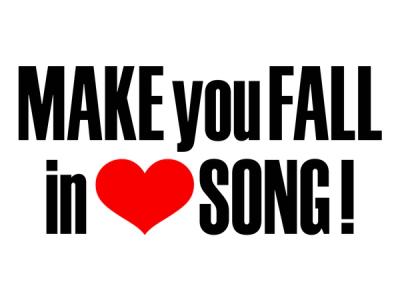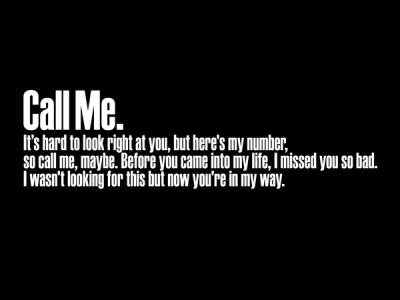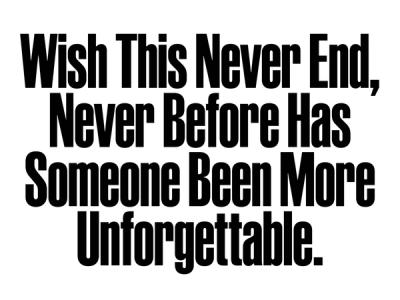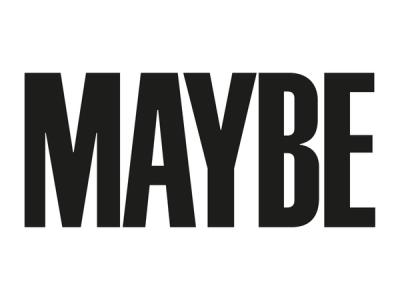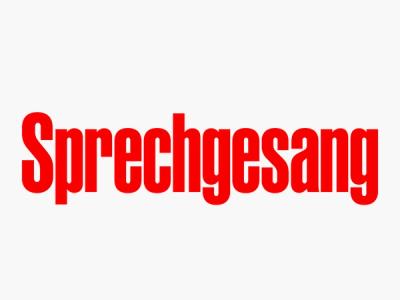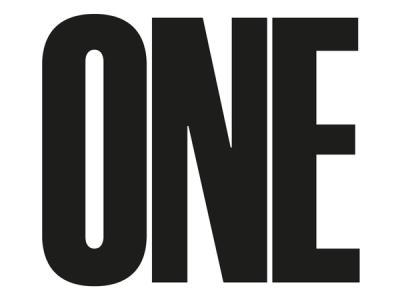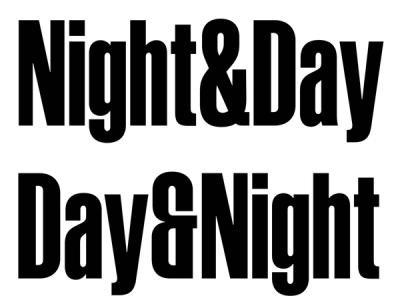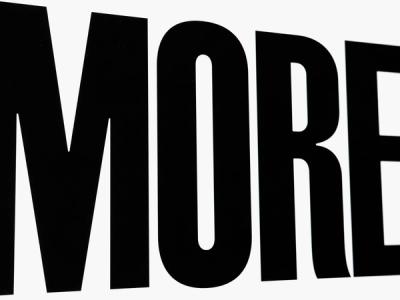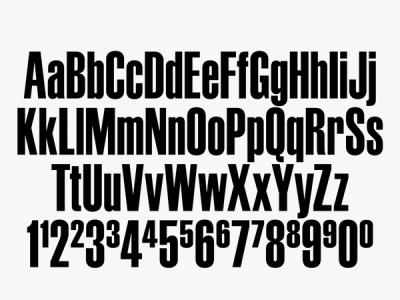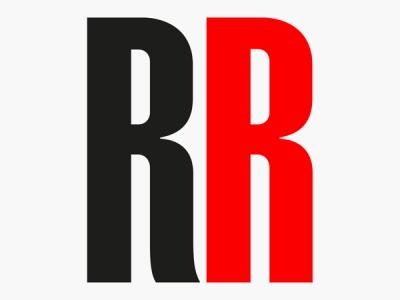
SCHMALFETTE GROTESK TYPEFACE
Schmalfette Grotesk typeface original drawing was designed by Swiss designer Walter F. Haettenschweiler in 1954. This renowned typeface until today was heavily inspired by American wood-types of the end of the nineteenth century before being the well-known photocomposition’s icon which many readers and designers fell in love with. In this updated version, this new Schmalfette Grotesk refers to Willy Fleckhaus’ work for the magazine Twen published in western Germany from 1959 to 1971, which featured popular, cultural, glamorous, fashion and photographic content. We wanted to pay tribute to the editorial design of the magazine which highlights a bold use of the Schmalfette Grotesk in capital letters and a smart use of German diacritics and punctuation. In our new version, we took care to be as close as possible to the vibe of the original drawing —which was only in capital letters— by adding a complete set of glyphs in lowercase that we interpreted with different stylistic sets (diacritic titling, below caps diacritics, 3 sets of punctuation). We had the chance to work with Jean Alessandrini during our research of shapes, as he is an eternal lover of this font that he used a lot as a graphic designer and tried to redraw as well in 70s. Our alphabet was validated and expertized by the Museum für Gestaltung from Zürich and by the Haettenschweiler family as a respectful revival of the original Schmalfette Grotesk by Walter F. Haettenschweiler. Thanks to them. With its tight letter spacing typical of the last mid century, Schmalfette Grotesk is ideal for contemporary titling and logotypes of today and tomorrow.
SCHMALFETTE GROTESK TYPEFACE Details
• Design
Walter F. Haettenschweiler (Uppercases and numbers original drawing), 1954 Guillaume Sbalchiero (Diorama Type Partners), 2017-2022
• Font Development
Alan Madić and Rafael Ribas
• Proofreading
Jean Alessandrini and Museum für Gestaltung Zürich
• Publishing Year
2023
• Version
1.1
• First Apparition
Revue Diorama No.1, Legibility